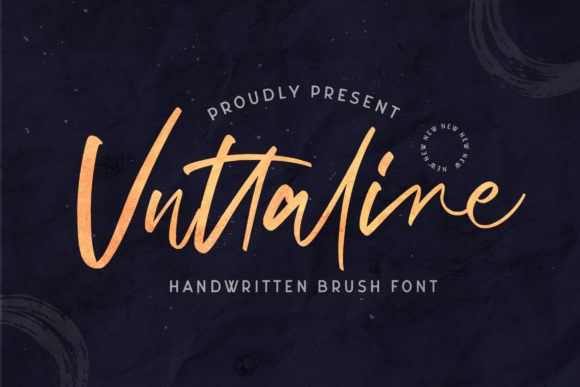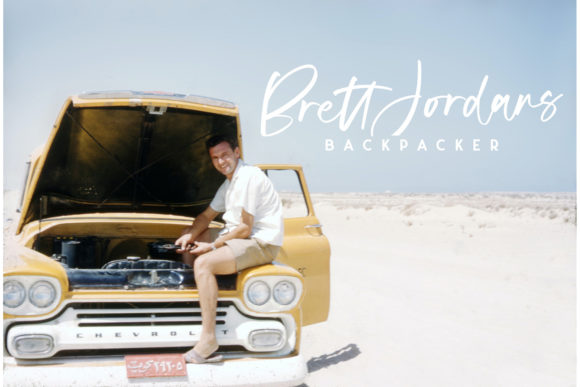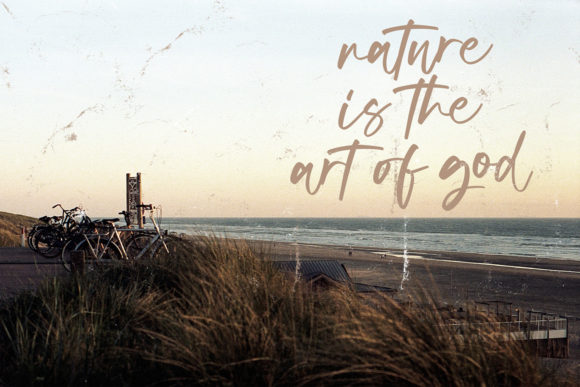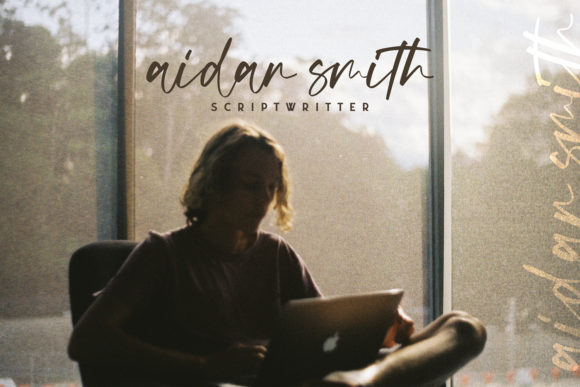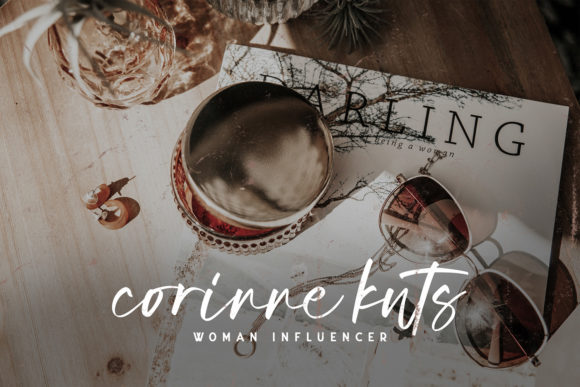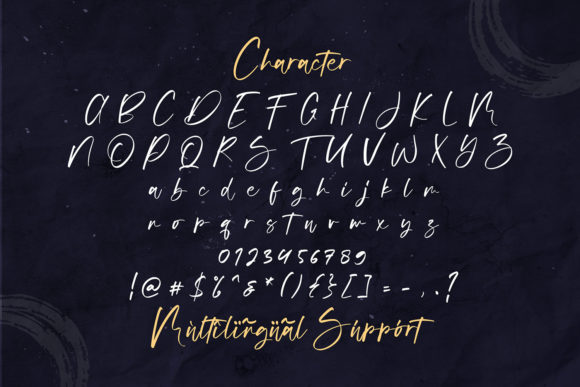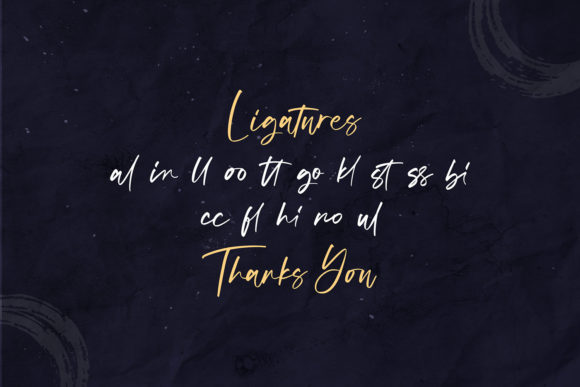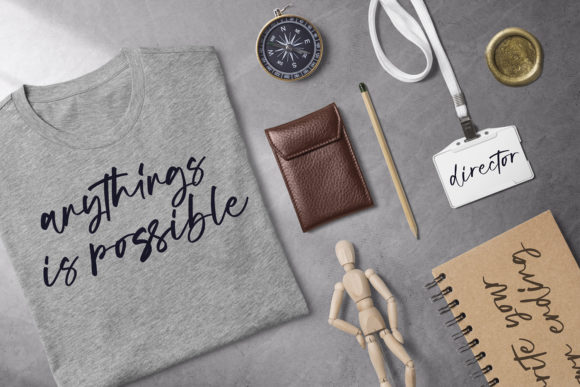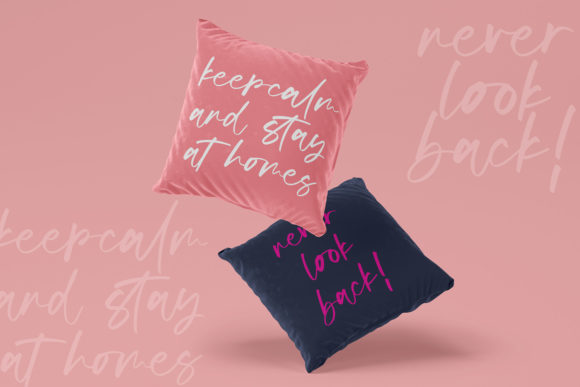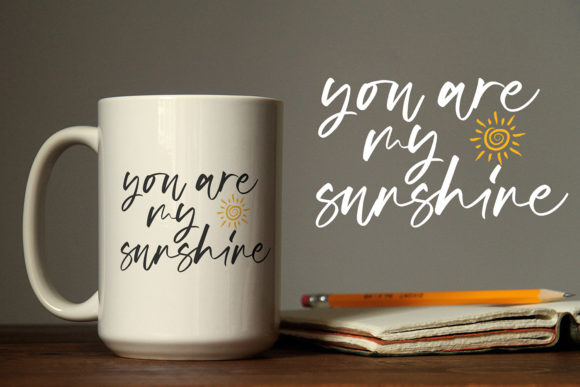
Vuttaline Font
About Vuttaline Font
Vuttaline is an exquisite handwritten font, masterfully designed to become a true favorite. It maintains its classy calligraphic influences while feeling contemporary and fresh. Fall in love with Vuttaline and bring your projects to the highest levels!